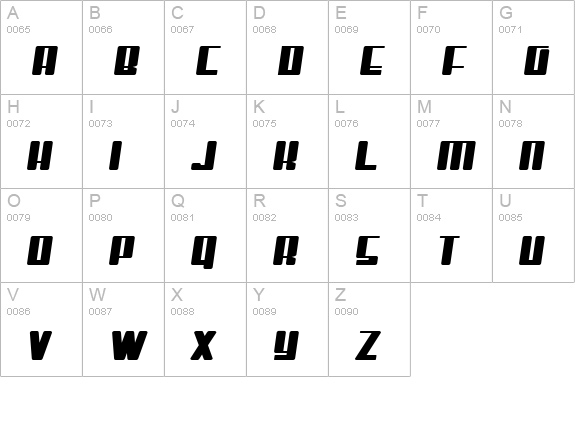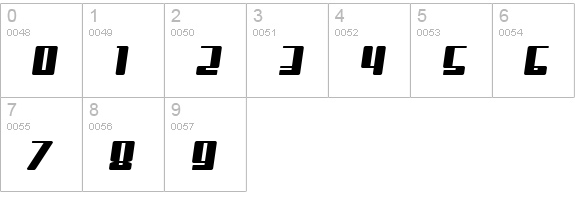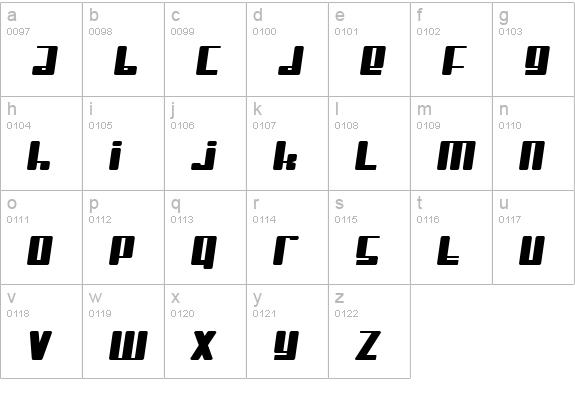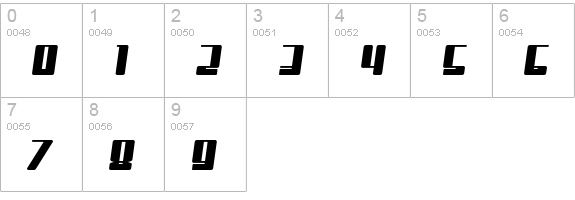
Mister Firley Font Details
Mister Firley font is a charming and versatile typeface that exudes warmth and friendliness. With its playful yet elegant appearance, this font is perfect for a wide range of design projects, from invitations to branding materials. Its unique letterforms and subtle quirks give it a distinct personality that will make your text stand out. What's even better is that Mister Firley font is available for free download at FontsMarket.com! This means you can easily incorporate this delightful font into your projects without any extra cost. Whether you're a designer looking to add a touch of whimsy to your creations or an individual wanting to add a personal touch to your messages, Mister Firley font is the perfect choice. Download it today and let your creativity shine with this delightful typeface.